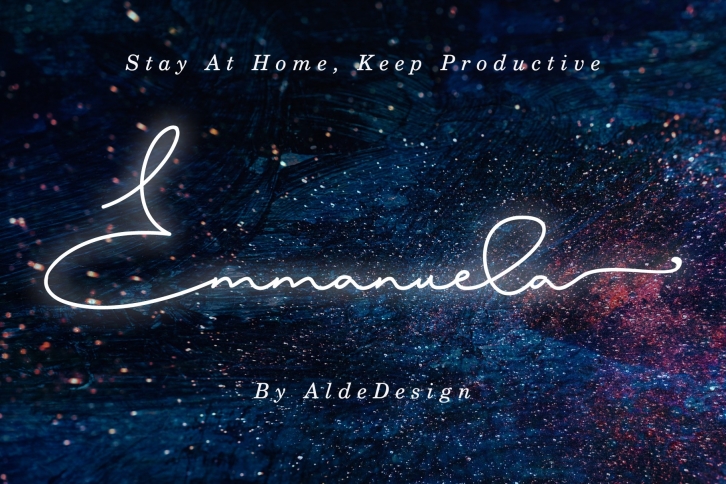
Emmanuella Signature is a great font that was designed by aldedesign. Imagine the amount of combinations you can create using this font! The archive is 20.58 MB and it was released on April 7, 2020. Emmanuella Signature looks beautiful on wedding invitations, greeting cards, logos, posters, labels, t-shirt designs, logos, business cards and is perfect for use in ink or watercolor works, fashion, magazines, packaging and food menus, children's books and more!